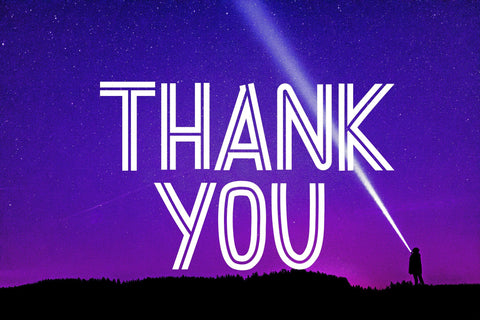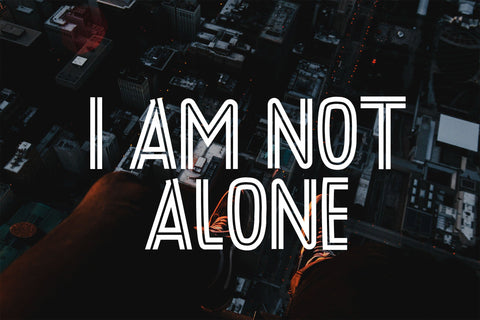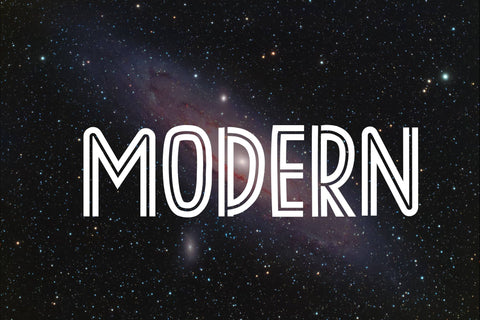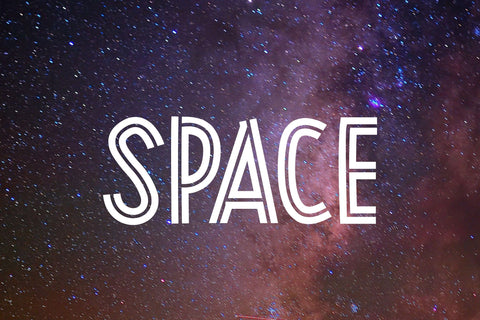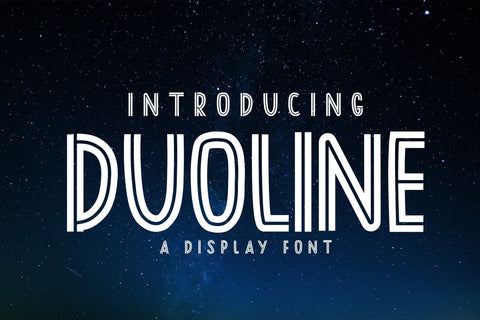
Duoline
Duoline is a simple and modern display font that has a clean and tidy feel. With its neat and beautiful lettering, this typeface will look amazing in both formal and informal designs. such as making logos, branding, social media posts and other designs